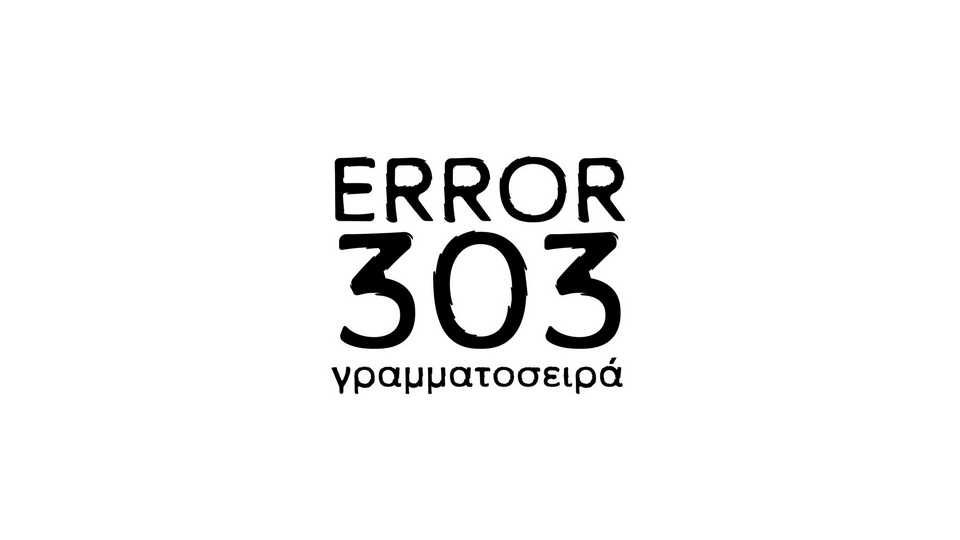
Download Error 303 font, a sans serif typeface with distressed contours that brings a rugged, urban vibe to your typography. It features precise, geometric letterforms softened by subtly worn and irregular edges.
Designer: Christos Lentzaris